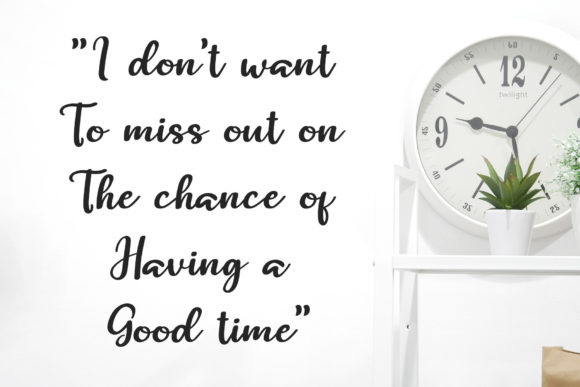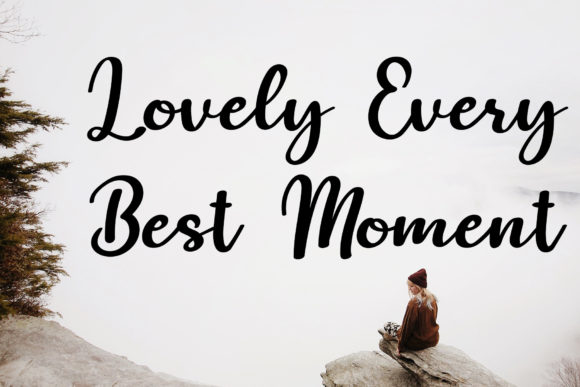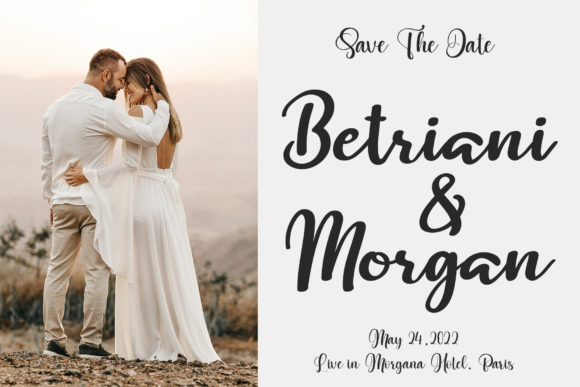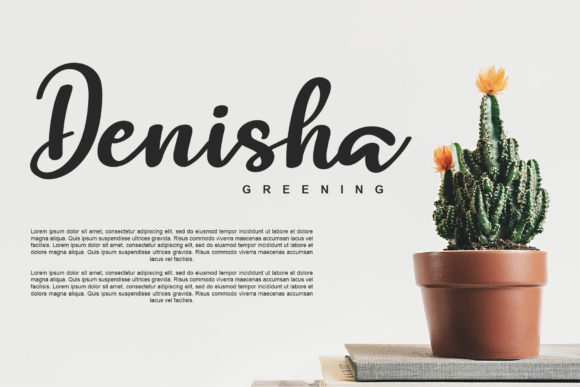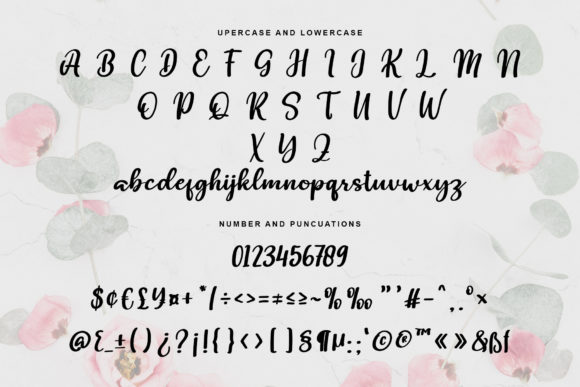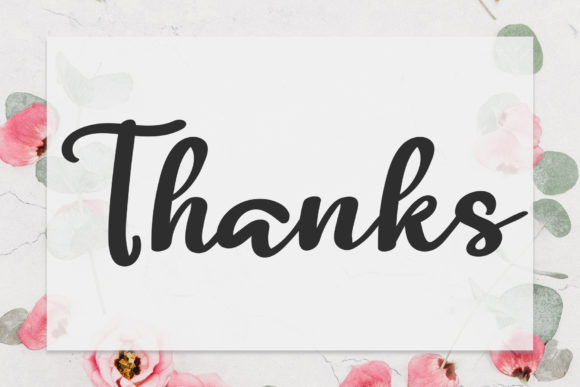
Introduction to Libbey Font
Libbey is a lovely and timeless handwritten font.
Key Features of Libbey Font
Why Choose Libbey Font?
Libbey Font offers exceptional quality and versatility, making it a valuable addition to your design toolkit. Whether you’re creating for personal projects or commercial use, Libbey Font delivers professional results.